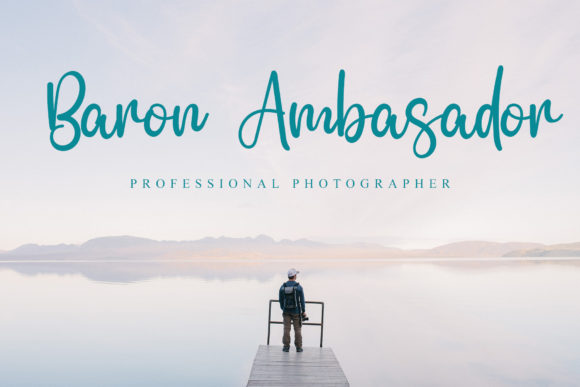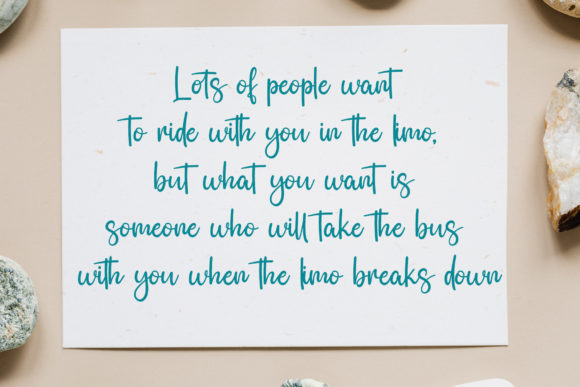
Rhinestone Font
db-ku.com - Script & Handwritten -- Rhinestone is a lovely and delicate script font that exudes elegance and class. This font was particularly crafted for those who need a beautiful and refreshing look to their designs.